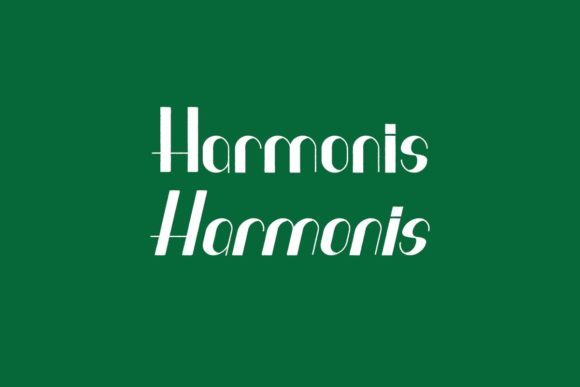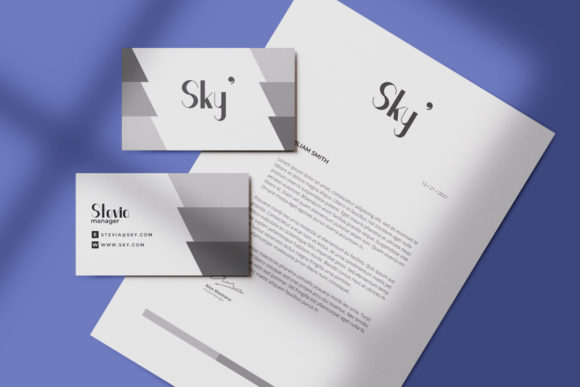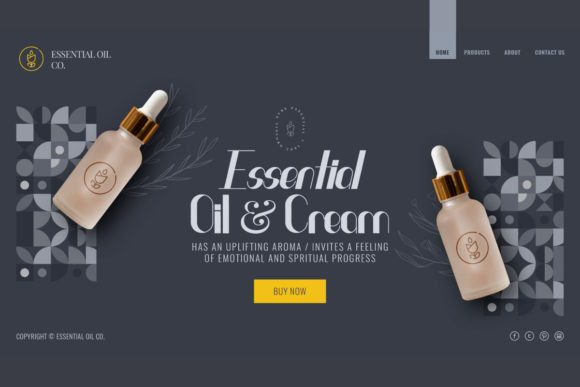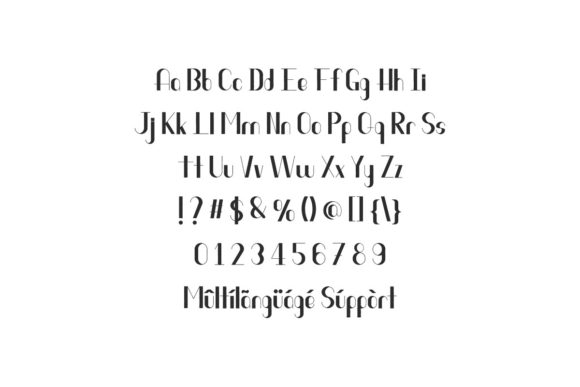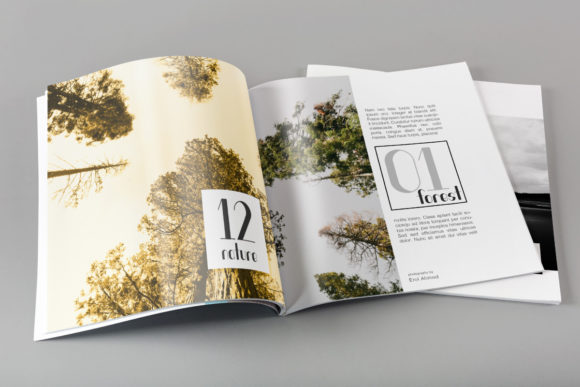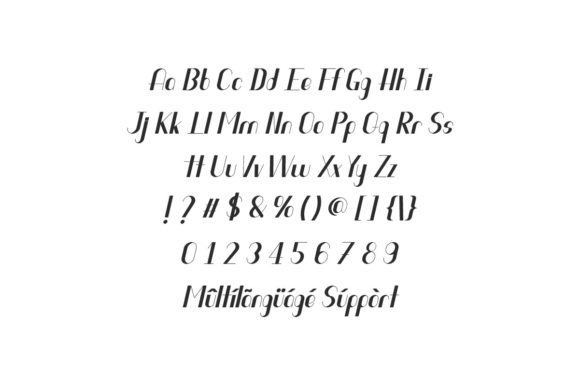
Introducing Harmonis Font: Elevate Your Designs with Elegance and Sophistication
In the world of typography, a font can make all the difference in the success of a design project. Whether you’re a seasoned designer or a crafty DIY enthusiast, finding the right font can be a daunting task. That’s where Harmonis Font comes in – a unique and elegant sans serif font that’s sure to elevate your designs to the next level.
What is Harmonis Font?
Harmonis Font is a carefully crafted sans serif font that boasts a neat, stylish vibe. Its unique characters and clean lines make it perfect for a wide range of design applications, from magazine titles and storybooks to fashion branding, marketing materials, and adverts.
Key Features of Harmonis Font
- Unique Characters: Harmonis Font features a range of unique characters that set it apart from more traditional fonts. Its distinctive letterforms are sure to add a touch of personality to your designs.
- Elegant Sans Serif: The font’s sans serif design makes it perfect for modern, sleek designs that require a touch of sophistication.
- Neat and Stylish: Harmonis Font has a clean, stylish vibe that’s perfect for designs that require a bit of elegance.
- Versatile: Whether you’re designing a magazine title, a storybook, or a marketing brochure, Harmonis Font is versatile enough to adapt to any design style.
Use Cases for Harmonis Font
So, what can you use Harmonis Font for? The possibilities are endless! Here are a few ideas to get you started:
- Magazine Titles: Add a touch of elegance to your magazine title with Harmonis Font. Its unique characters and clean lines make it perfect for creating eye-catching headlines.
- Storybooks: Harmonis Font is a great choice for storybooks, adding a touch of whimsy and personality to your text.
- Fashion Branding: If you’re a fashion brand looking for a font that exudes style and sophistication, Harmonis Font is a great choice.
- Marketing Materials: From brochures to flyers, Harmonis Font is perfect for creating marketing materials that require a bit of elegance.
- Adverts: Whether you’re creating a print or digital advert, Harmonis Font is sure to grab attention with its unique characters and clean lines.
Why Choose Harmonis Font?
So, why should you choose Harmonis Font for your next design project? Here are just a few reasons:
- Stand out from the Crowd: With its unique characters and clean lines, Harmonis Font is sure to make your design stand out from the crowd.
- Elegant and Sophisticated: Harmonis Font adds a touch of elegance and sophistication to any design, making it perfect for high-end brands and luxury products.
- Versatile: Whether you’re designing a magazine title or a marketing brochure, Harmonis Font is versatile enough to adapt to any design style.
- Easy to Read: Despite its unique characters, Harmonis Font is easy to read, making it perfect for body text as well as headlines.
In conclusion, Harmonis Font is a unique and elegant sans serif font that’s perfect for designers and crafters looking to elevate their designs. With its unique characters, clean lines, and stylish vibe, it’s sure to add a touch of sophistication to any design project. Whether you’re designing a magazine title, a storybook, or a marketing brochure, Harmonis Font is a great choice. So why not give it a try and see the difference it can make in your designs?